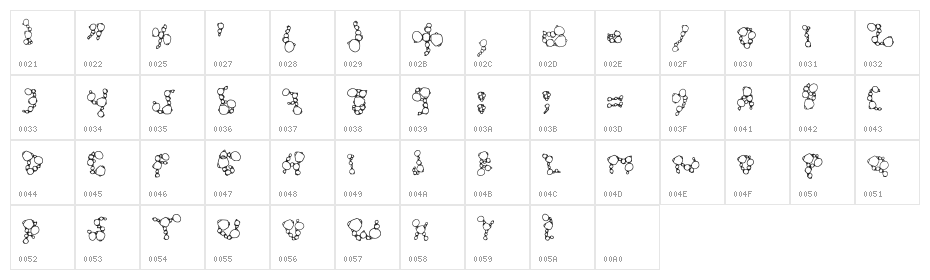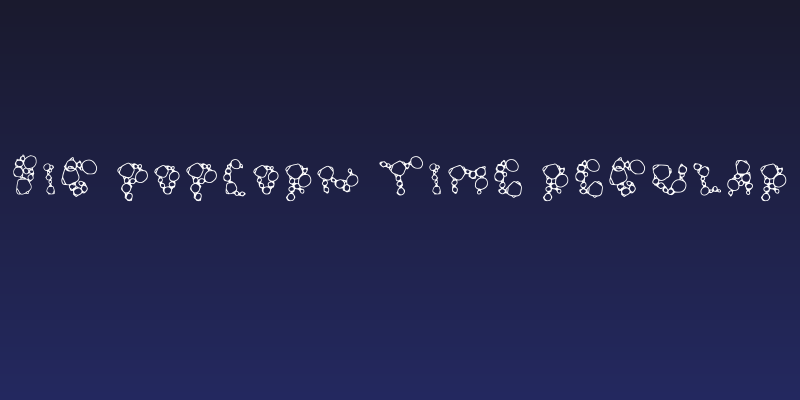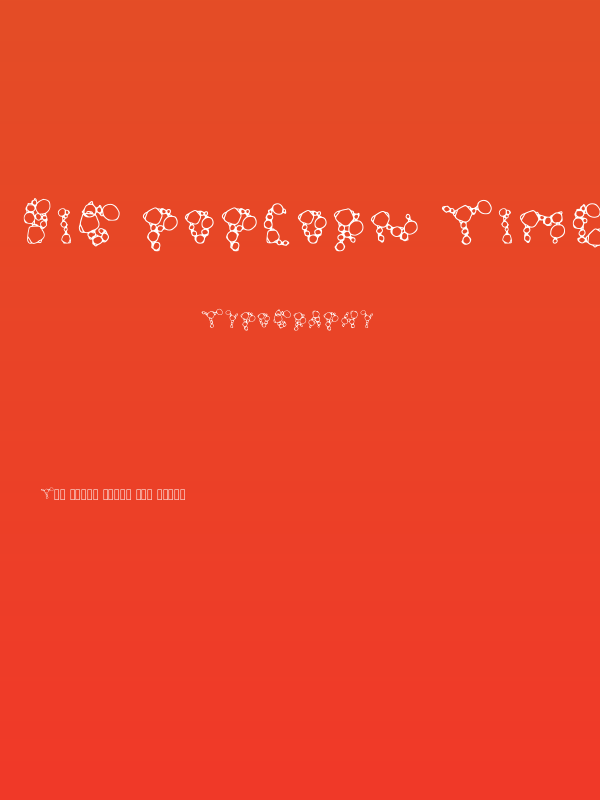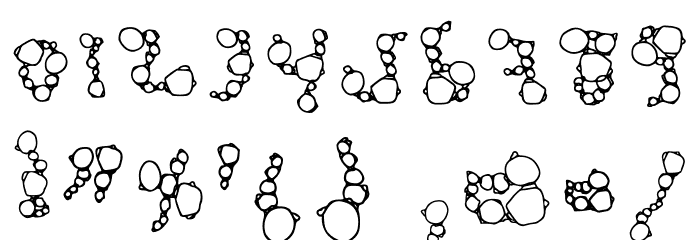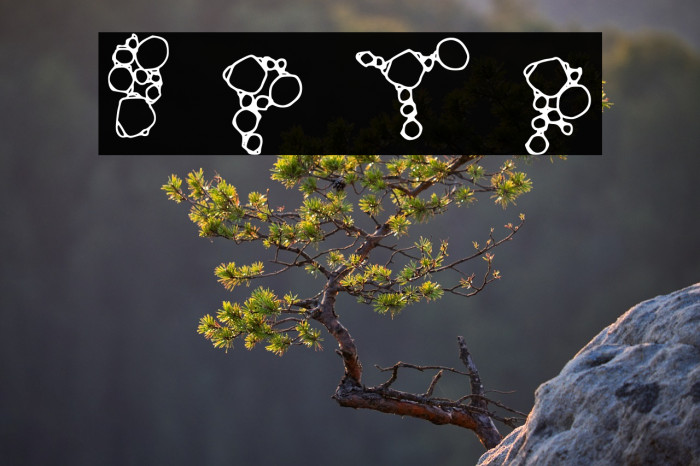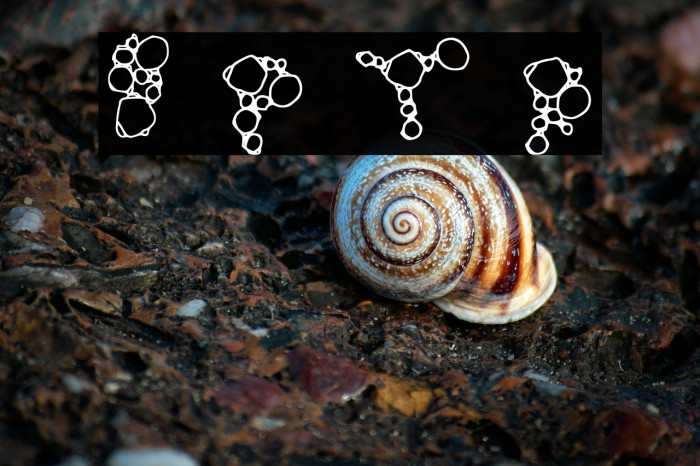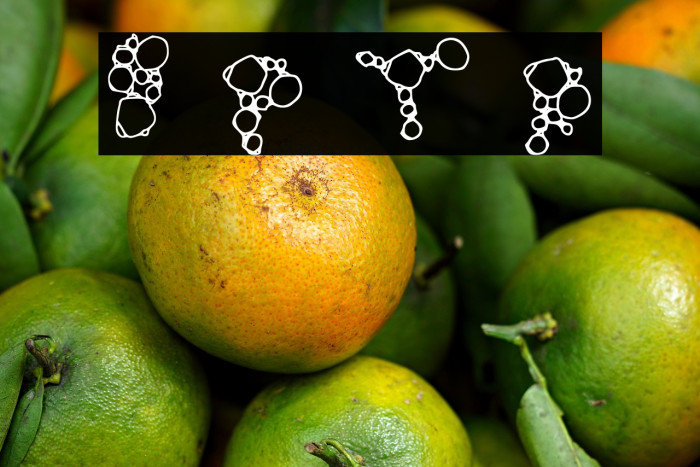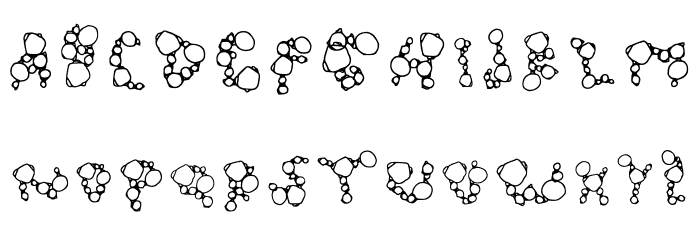
Big Popcorn Time Regular Font
Big Popcorn Time Regular Description
This playful and whimsical font features a unique design where each character is composed of interconnected circular shapes, resembling popcorn clusters. The letters have a bubbly and organic appearance, creating a sense of fun and creativity. The font maintains a consistent style across uppercase, lowercase, numbers, and special characters, making it versatile for various design projects. Its distinctiveness lies in the irregularity and fluidity of the shapes, which add a dynamic and lively touch to any text.
| Proposed Projects | Ideal for children's books, playful branding, party invitations, and creative posters. |